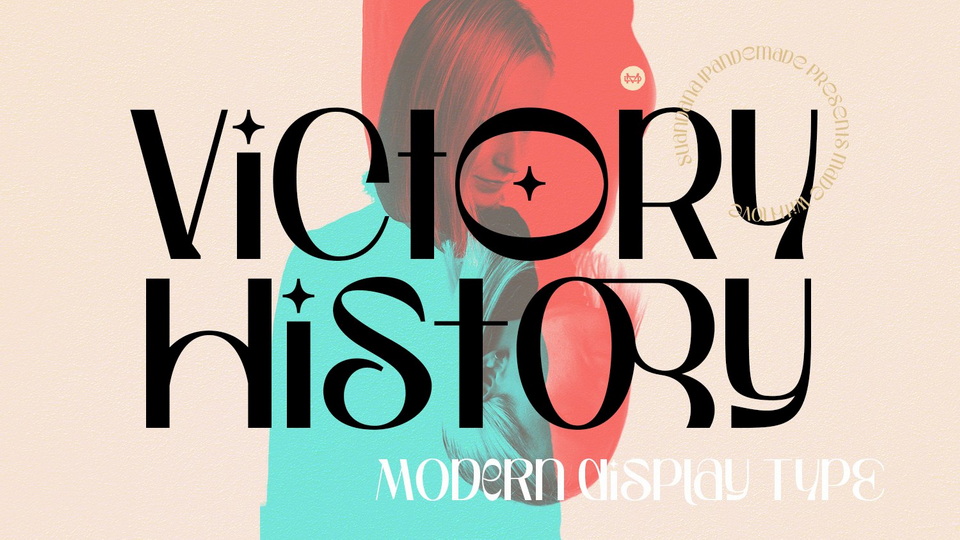
Victory History Font
Victory History is a modern sans serif typeface. Use this font for any branding, product packaging, invitation, quotes, t-shirt, label, poster, logo etc.
Designed by: TypeClassHeroes (madeDeduk)